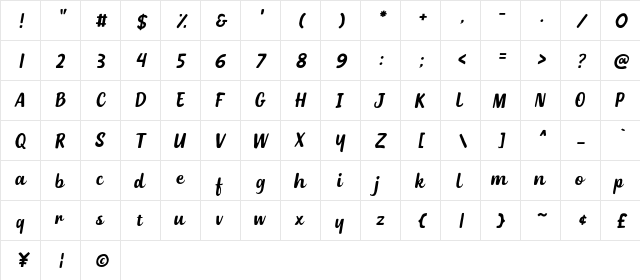
Dephion Slanted Regular
Design Context for Dephion Slanted Typeface
Dephion Slanted is a composed and adaptable typeface that performs quietly and consistently across a wide range of design contexts. The dynamic lean of this cut emphasises speed and emphasis in any layout.
Pro Tip: Try Dephion Slanted for annotation and caption copy alongside an upright companion — the contrast in angle creates a dynamic but ordered typographic system.